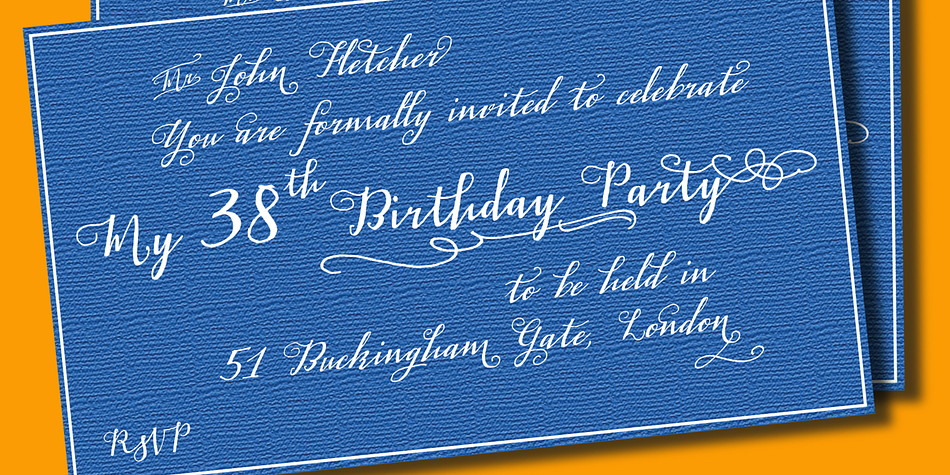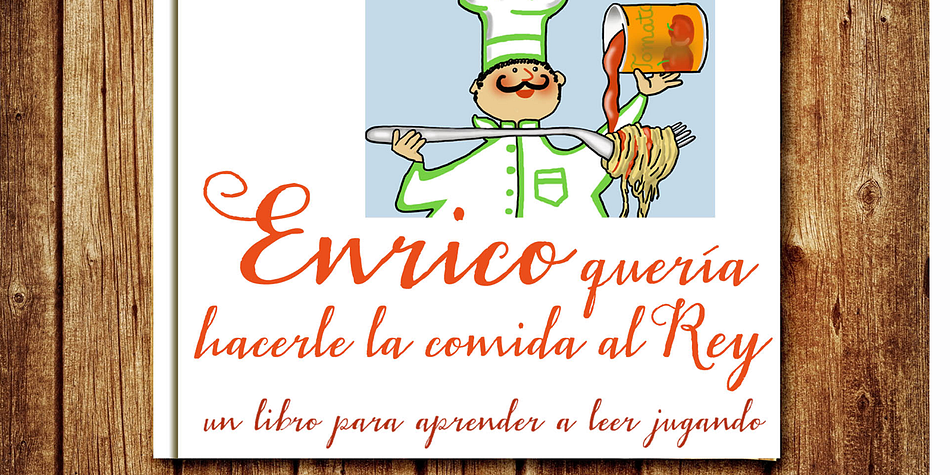
Gemmadonati
Gemmadonati is a script and modern calligraphy font family. This typeface has two styles and was published by Eurotypo.
Gemmadonati Regular and Gemmadonati Italic is an organic, modern and casual calligraphy family font that has preserved in its glyphs its original textured appearance for a more personalized effect even more authentic.
As an exclusively Open Type release, with 790 glyphs and 63 ornaments, it has several special alternatives for all letters with lots of possibility an an infinity of combinations.
There are plenty of options to allow you to create something unique and special: standard and discretionary ligatures, several swashes and stylistics alternates for each letter, catchwords, tails that can be added to the beginning or end of each letter, ornaments, and much more.
These lovely fonts have already an extended character set to support Central and Eastern as well as Western European languages.
Gemmadonati was made to make your project more beautiful and attractive!
Displaying the beauty and characteristics of the Gemmadonati font family.
Gemmadonati Regular and Gemmadonati Italic is an organic, modern and casual calligraphy family font that has preserved in its glyphs its original textured appearance for a more personalized effect even more authentic.
As an exclusively Open Type release, with 790 glyphs and 63 ornaments, it has several special alternatives for all letters with lots of possibility an an infinity of combinations. There are plenty of options to allow you to create something unique and special: standard and discretionary ligatures, several swashes and stylistics alternates for each letter, catchwords, tails that can be added to the beginning or end of each letter, ornaments, and much more.
These lovely fonts have already an extended character set to support Central and Eastern as well as Western European languages.
Gemmadonati was made to make your project more beautiful and attractive! Have fun with it!